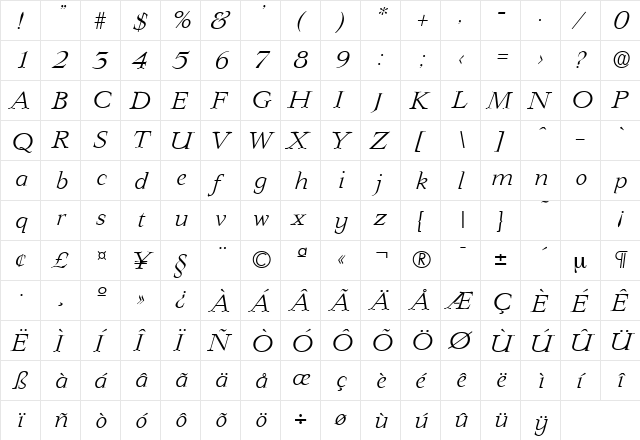
Lingwood-Serial-Light RegularItalic Font Preview
Design Context for Lingwood-Serial-Light Typeface
Lingwood-Serial-Light echoes the hand-painted signage and woodblock typography of the American frontier, with a warm, rugged personality. Its italic angle brings a sense of urgency and motion to the letterforms. The delicate stroke weight brings airiness and refinement to layouts.
A natural fit for craft spirits, ranch branding, rodeo events, and Americana-inspired design work.
Font Pairing: Combine Lingwood-Serial-Light with a simple slab or neutral sans — period-accurate companions reinforce the vintage feel without competing for attention.
Pro Tip: Use Lingwood-Serial-Light for short, impactful bursts of text — it shines in poster headlines and product names rather than extended copy.